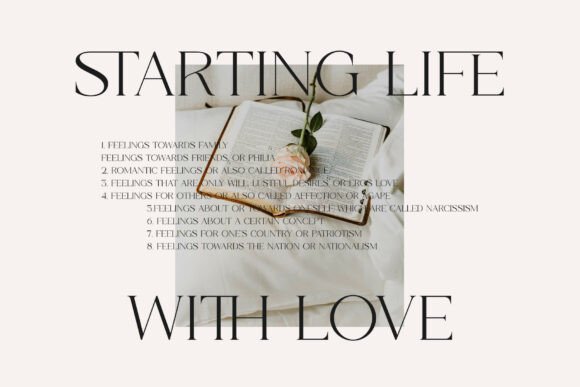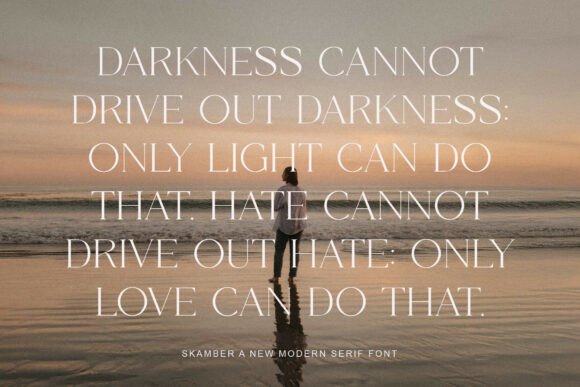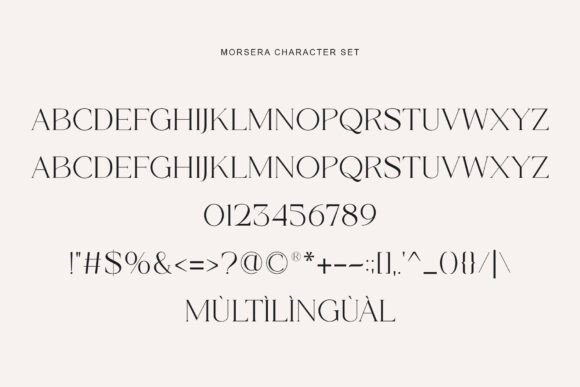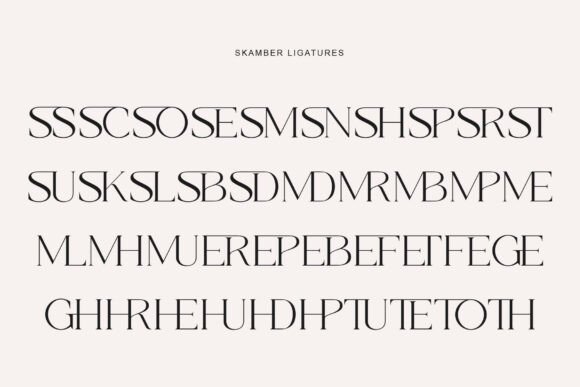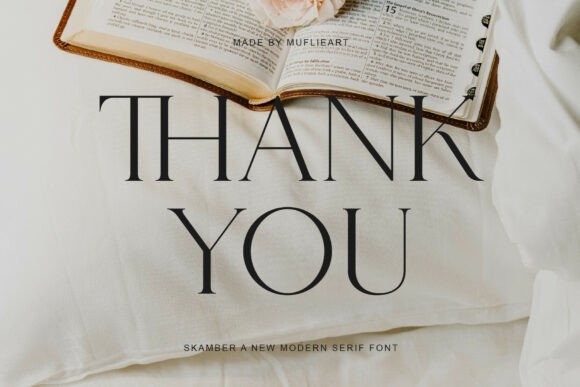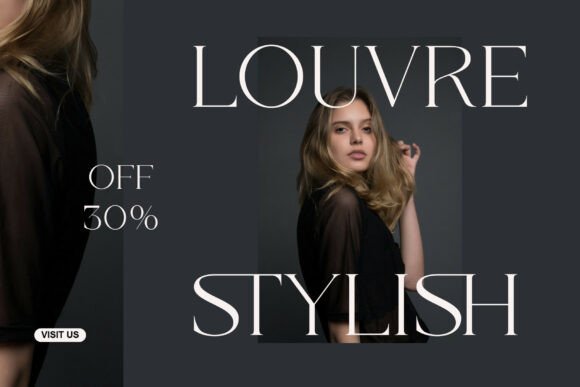
Introduction to Skamber Font
Have you ever been browsing through a fashion magazine, mesmerized by the clean lines and sleek typography, and wondered what magic lies behind those elegant fonts? As a designer, you’re no stranger to the thrill of discovering a new design resource that elevates your creative project to the next level. That’s exactly what the Skamber Font does – it’s a game-changer for any designer looking to add a touch of high-fashion minimalism to their work.
Imagine a font that combines the sophistication of a luxury brand with the edginess of a cutting-edge tech logo. The Skamber Font is that and more – a masterpiece of modern typography that boasts ultra-wide letterforms, razor-sharp serifs, and sweeping terminal curves. With its unique architectural apertures and high-contrast stems, this font is a design dream come true.
Key Features of Skamber Font
- Unique, hand-drawn design ideal for creative projects requiring a personal touch.
Honest Review: Skamber Font
As a designer, I’m always on the lookout for unique and high-quality design resources to elevate my creative projects. The Skamber Font is one such resource that caught my attention, and I’m excited to share my honest review with you.
- ✨ The font’s eclectic and quirky style makes it perfect for adding a touch of whimsy to your designs.
- ✨ The font is highly customizable, with a range of weights and styles to choose from.
- ✨ The font’s transparent background makes it easy to use on any design background.
- ⚠️ The font may not be suitable for formal or professional designs, due to its playful and quirky nature.
- ⚠️ Some users may find the font’s eccentric style overwhelming or difficult to read.
Overall, I’m impressed with the Skamber Font’s quality and versatility. While it may not be for every designer, it’s an excellent choice for those looking to add a touch of creativity and whimsy to their designs.